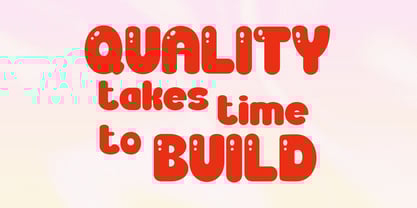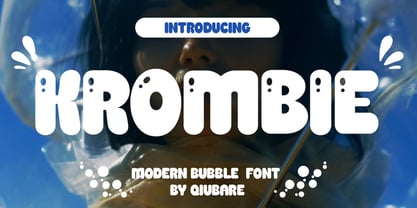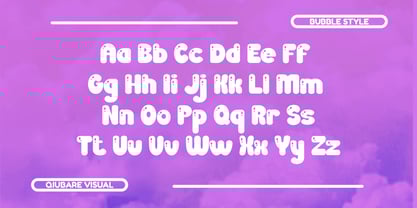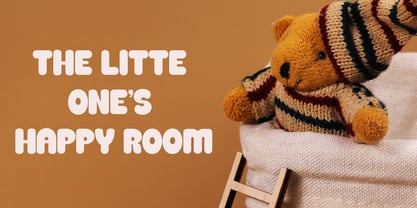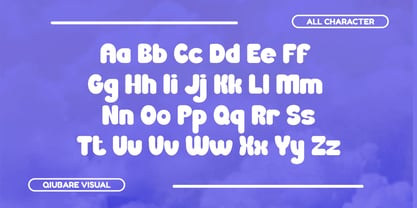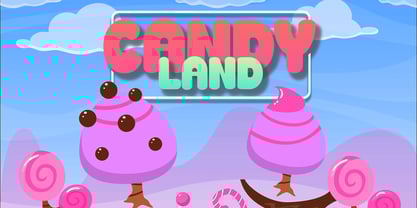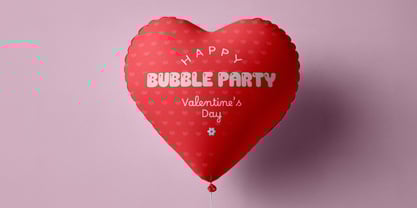
Krombie
by Qiubare Studio
The Krombie Font Family was designed by Michael Everson and published by Qiubare Studio. Krombie contains 1 styles. More about this family
Krombie is a bold and modern bubble font that infuses a fun, playful vibe into your designs. Featuring rounded shapes and a bubbly personality, this typeface is ideal for projects that require a cheerful and eye-catching touch. Whether you’re creating logos, posters, packaging, headlines, or social media graphics, Krombie ensures every word bursts with energy and creativity. Its strong yet friendly style guarantees that your design stands out while maintaining a warm and approachable feel. Krombie includes uppercase and lowercase letters, numbers, punctuation, and multilingual support, making it versatile for various platforms and design software. Elevate your projects with Krombie – the modern bubble font that transforms simple text into fun, bold statements.
Designers: Michael Everson
Foundry: Qiubare Studio